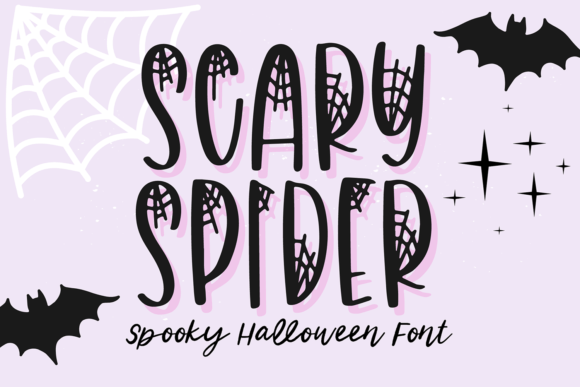
Introducing Scary Spider Font, the ultimate font for Halloween enthusiasts! Designed by blushfontco, this decorative font is guaranteed to add a spooky touch to all your Halloween projects. Whether you're creating captivating party invitations, designing eerie T-shirts, or decorating your haunted house, Scary Spider Font is the perfect choice.
With its intricate webbed design, Scary Spider Font captures the essence of Halloween like no other. Each letter is meticulously crafted to replicate the creepy yet fascinating spider webs, making your text truly come alive. This font will instantly transport you to a world of witches, ghosts, and all things spooky.
Scary Spider Font is not just visually stunning, but also incredibly versatile. It can be easily installed on your computer, allowing you to use it across various applications and platforms. Whether you're a graphic designer, an event planner, or simply a Halloween enthusiast, this font will elevate your creations to a whole new level.
Imagine the excitement on your guests' faces when they receive an invitation adorned with Scary Spider Font. Its unique and captivating style will set the perfect mood for your Halloween party, leaving a lasting impression on everyone who lays eyes on it. Let your creativity run wild as you experiment with different sizes, colors, and effects, ensuring your designs are truly one-of-a-kind.
Not only is Scary Spider Font perfect for digital designs, but it also shines when used for physical products. Print it on T-shirts, banners, or even custom-made Halloween decor to add that extra touch of spookiness. Its detailed web patterns will mesmerize anyone who sees it, making it an ideal choice for those who want to stand out from the crowd.